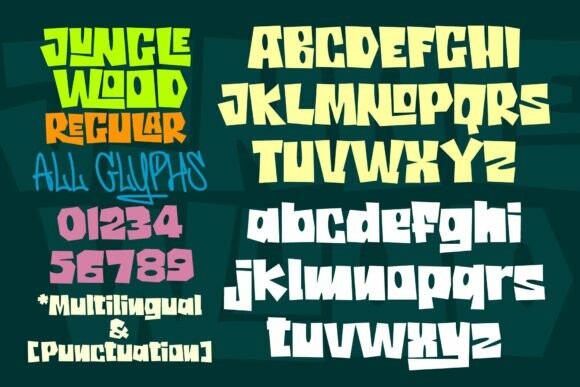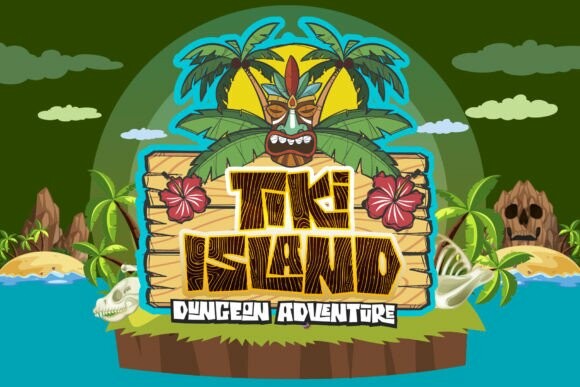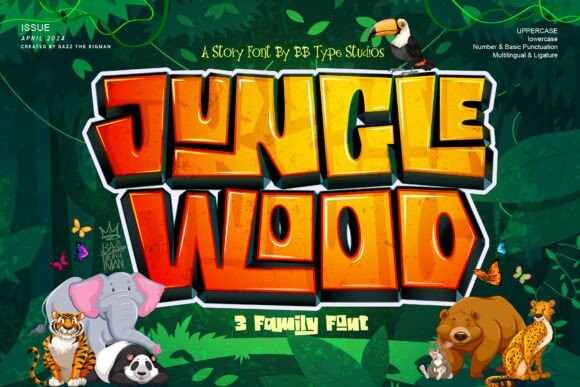
Jungle Wood Font
Jungle Wood Font, a striking trio of display fonts that come with a dose of primal power. Each font is characterized by sharply cut edges, inherent fun, and a radiant bold demeanor. Born from the essence of an untamed forest, our Jungle Wood fonts are perfect for crafting impactful posters, unique logo designs, provocative book covers, hip T-shirts and edgy streetwear styles. Whether your quest is for dominant words that exude strength or the final touch to accentuate your designs, Jungle Wood imbues your projects with the raw vitality of life thriving away from civilization. Experience the exciting call of the wild in every stroke of JungleWood. Express the unexpressed with JungleWood Fonts.